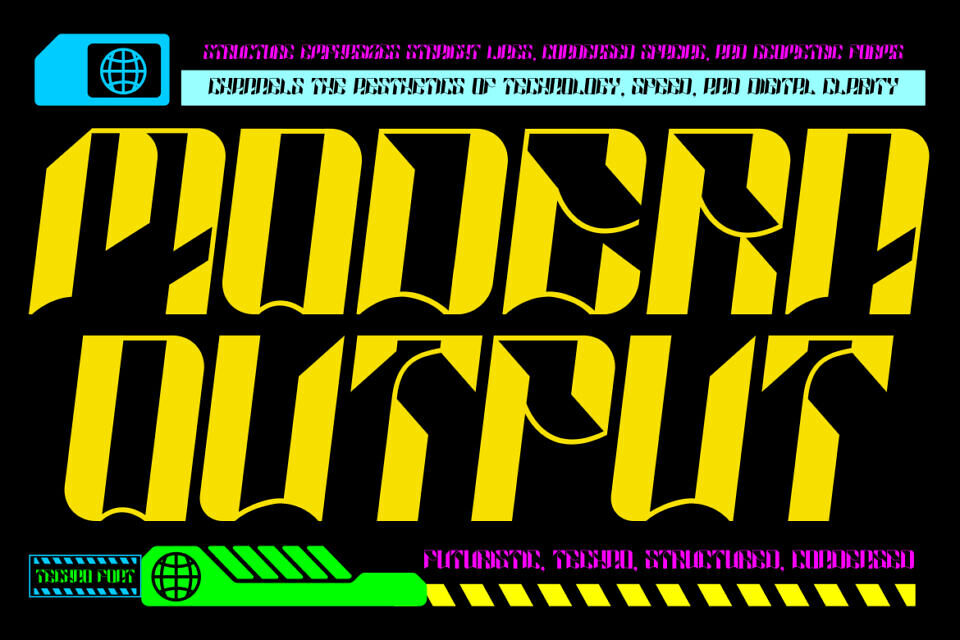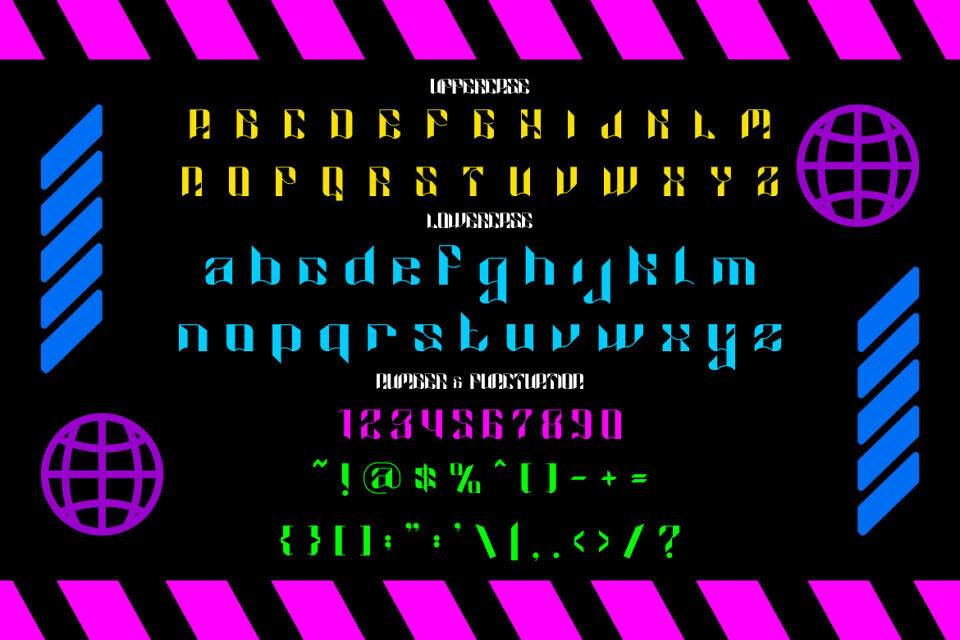
Cosmic Network Font
Cosmic Networkis a futuristic display typeface that merges digital aesthetics with bold techno energy. The font is built with sharp geometric lines, condensed spacing, and striking angular cuts that reflect technology, speed, and innovation.
Its design balances sci-fi inspiration with modern usability, making it a versatile choice for creative professionals who need a typeface that feels both futuristic and structured. Whether you are working on posters, packaging, logos, or digital branding, this font delivers a strong visual statement with a unique techno vibe.